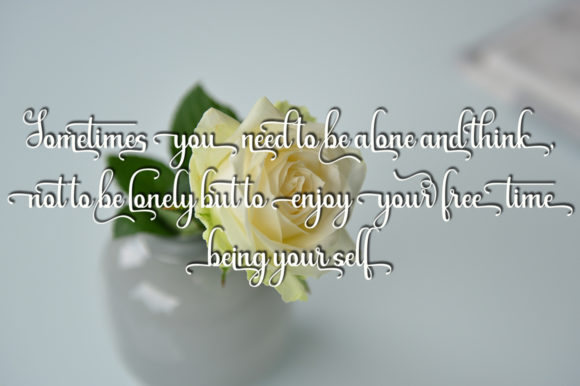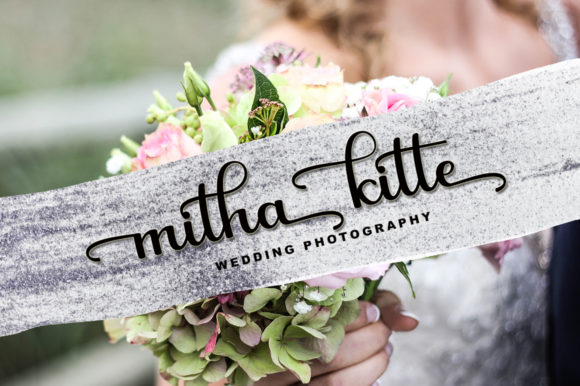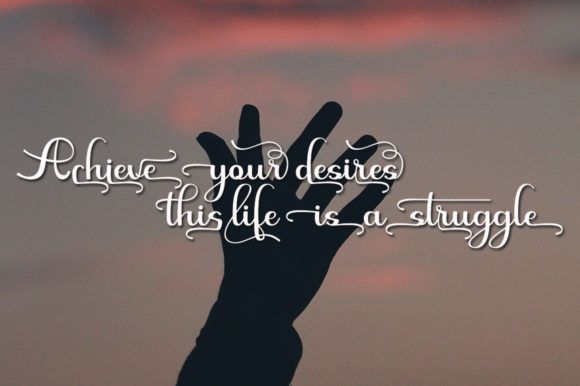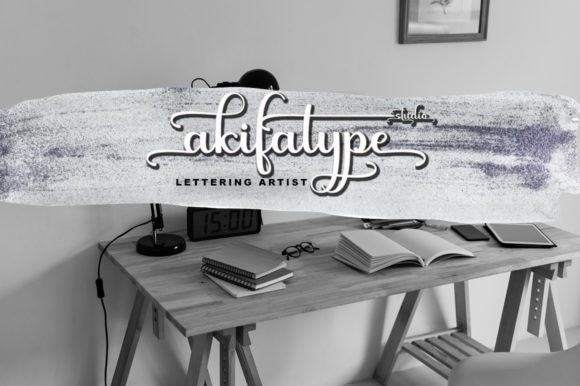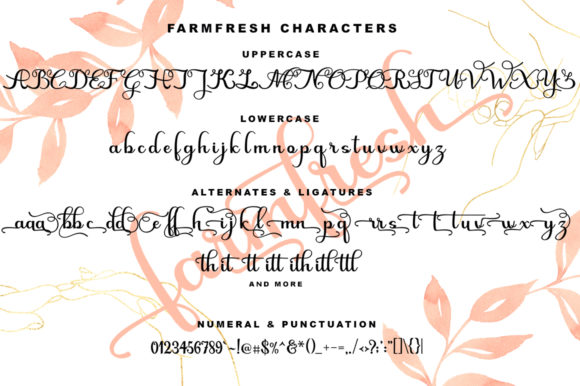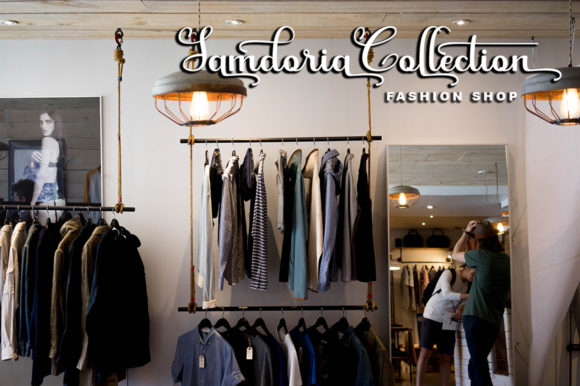
Where Creativity Meets Farmfresh Charm
Have you ever been on a rural road trip, driving through rolling hills and lush green pastures, when suddenly you stumble upon a quaint little farmhouse? The rustic charm and classic beauty of that moment often inspire us to create something special. For designers, that spark of creativity can come in the form of the perfect font – one that captures the essence of a bygone era while still feeling modern and fresh.
Enter the Farmfresh Script Font, a highly legible script font that embodies the perfect blend of bold and vintage. With its classic look and feel, this font is perfect for designers seeking to add a touch of whimsy and personality to their projects. Whether you’re designing a new logo, creating a wedding invitation, or crafting a brand identity, the Farmfresh Script Font is an invaluable tool in your creative arsenal.
Farmfresh Script Font Key Features
- Unique Characteristics: Farmfresh Script Font features a beautiful, hand-drawn design with intricate flourishes and subtle imperfections, giving it a unique and organic feel.
- Language Support: The font supports a wide range of languages, including Latin, Cyrillic, and Greek, making it a versatile choice for designers working on international projects.
Farmfresh Script Font Review
Overall, I think Farmfresh Script Font is a nice addition to any designer’s toolkit. It’s perfect for adding a touch of rustic charm to your projects. ✨ I love the way the font flows and feels very natural.
Here are some things that work well:
- Unique aesthetic: Farmfresh Script Font has a distinct look that sets it apart from more traditional script fonts.
- Good legibility: Despite its script nature, the font is still easy to read, even at smaller sizes.
- High-quality design: The font is well-designed and looks great at various resolutions.
- Limited language support: Farmfresh Script Font may not support all languages, which could be a problem for international projects.
- No bold or italic versions: If you need to emphasize certain text, you’ll have to rely on other fonts or manual styling.
- Not ideal for small text: While the font is legible, it’s not the best choice for very small text sizes.
Overall, I think Farmfresh Script Font is a great choice for projects that require a rustic, handwritten feel. Just be aware of its limitations and use it judiciously. ⚠️
Tips: Use the Farmfresh Script Font for headings and titles to add a touch of elegance to your designs.
Tips: Use the Farmfresh Script Font to create custom watermarks or add a personal touch to your illustrations.
Tips: Use the Farmfresh Script Font to create custom titles or headings for presentations and documents.
The Farmfresh Script Font is perfect for:
- Food and beverage branding
- Custom watermarks and logos
- Personalized gift labels and tags